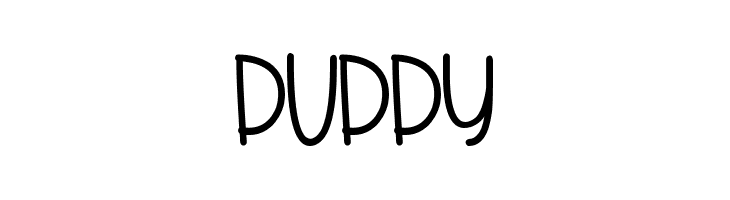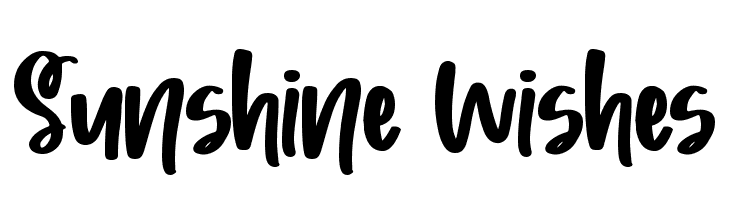
An elegant script font with flowing, cursive letterforms and graceful flourishes.
A casual, handwritten font with a natural, fluid style.
An elegant serif italic font with smooth curves and classic style.
A classic serif font with elegant strokes and a vintage aesthetic.
A modern, clean sans-serif typeface with excellent readability and versatility.
A bold, modern sans-serif font with clean lines and excellent readability.
A modern, italic font with clean lines and moderate contrast, offering elegance and readability.
A classic serif typeface with modern elegance and excellent readability.
A clean, modern sans-serif font with a straightforward and approachable design.
A bold, flowing script font with elegant swashes and a modern yet timeless appeal.
A modern, minimalist font with clean lines and geometric shapes.
A clean, monospaced font ideal for coding and technical documents.
A classic serif font with high contrast and elegant serifs, ideal for formal and sophisticated designs.
A classic serif font with elegant, high-contrast strokes and pronounced serifs.
A classic serif font with a historical and authoritative style.
A classic serif font with a historical and elegant style.
A classic serif font with a historical and elegant design.
A bold, modern sans-serif font with excellent readability and a clean, professional appearance.
A clean, modern sans-serif font with excellent readability and a balanced design.
A classic serif typeface with elegant proportions and refined serifs.
A classic serif font with elegant strokes and moderate contrast, ideal for traditional and scholarly texts.
A bold, modern sans-serif font with excellent readability and versatility.
A bold, oblique sans-serif font with a modern and dynamic style.
A modern sans-serif font with an oblique slant, offering a clean and dynamic appearance.
A clean, modern sans-serif font with balanced proportions and excellent readability.
Bold, geometric font with a modern, futuristic style.
Expressive, abstract handwritten script with decorative flair.
A playful, childlike font with rounded, consistent strokes and a slight slant.
A playful, rounded, and slightly italicized font with a modern touch.